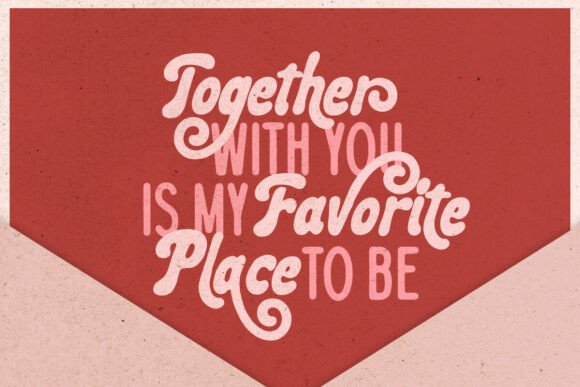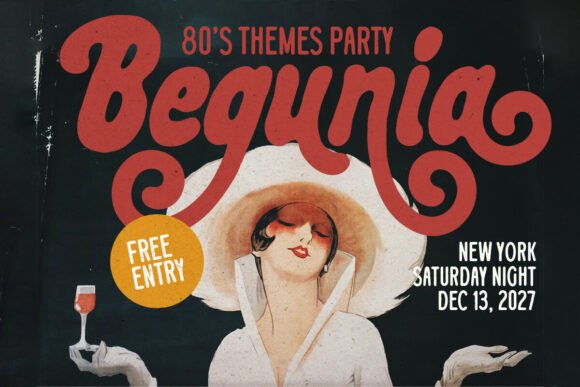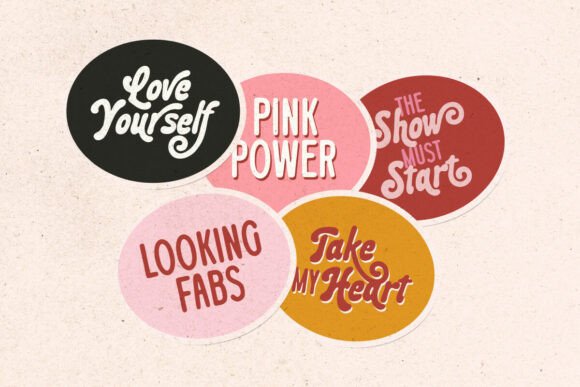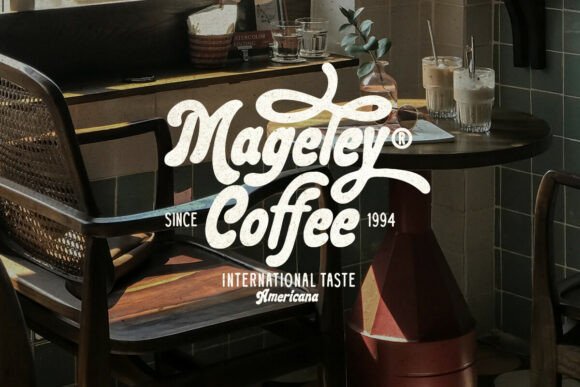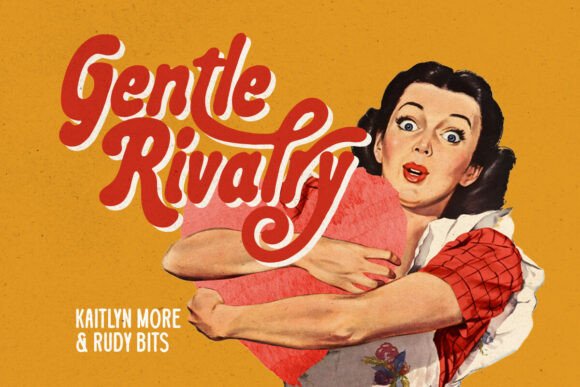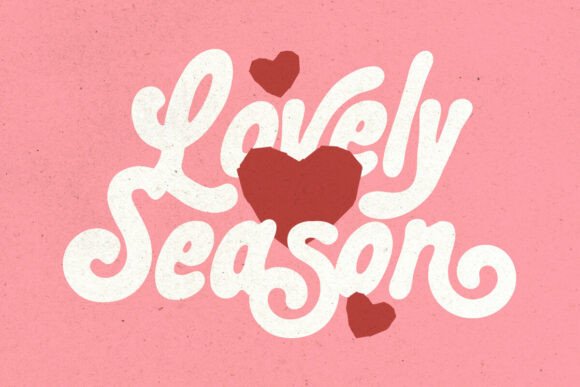
Introduction to Romantic Aura Duo Font
The Romantic Aura Duo Font is a groovy, bubble-style retro font that perfectly encapsulates the vibrant energy of the 70s.
This Romantic Aura Duo font features thick, curvaceous letterforms and playful ligatures that create a sense of movement and “cool” nostalgia As a standout retro Romantic Aura typeface, it is the ultimate tool for creating eye-catching social media graphics, vintage apparel, and bold music posters.
Key Features of Romantic Aura Duo Font
Why Choose Romantic Aura Duo Font?